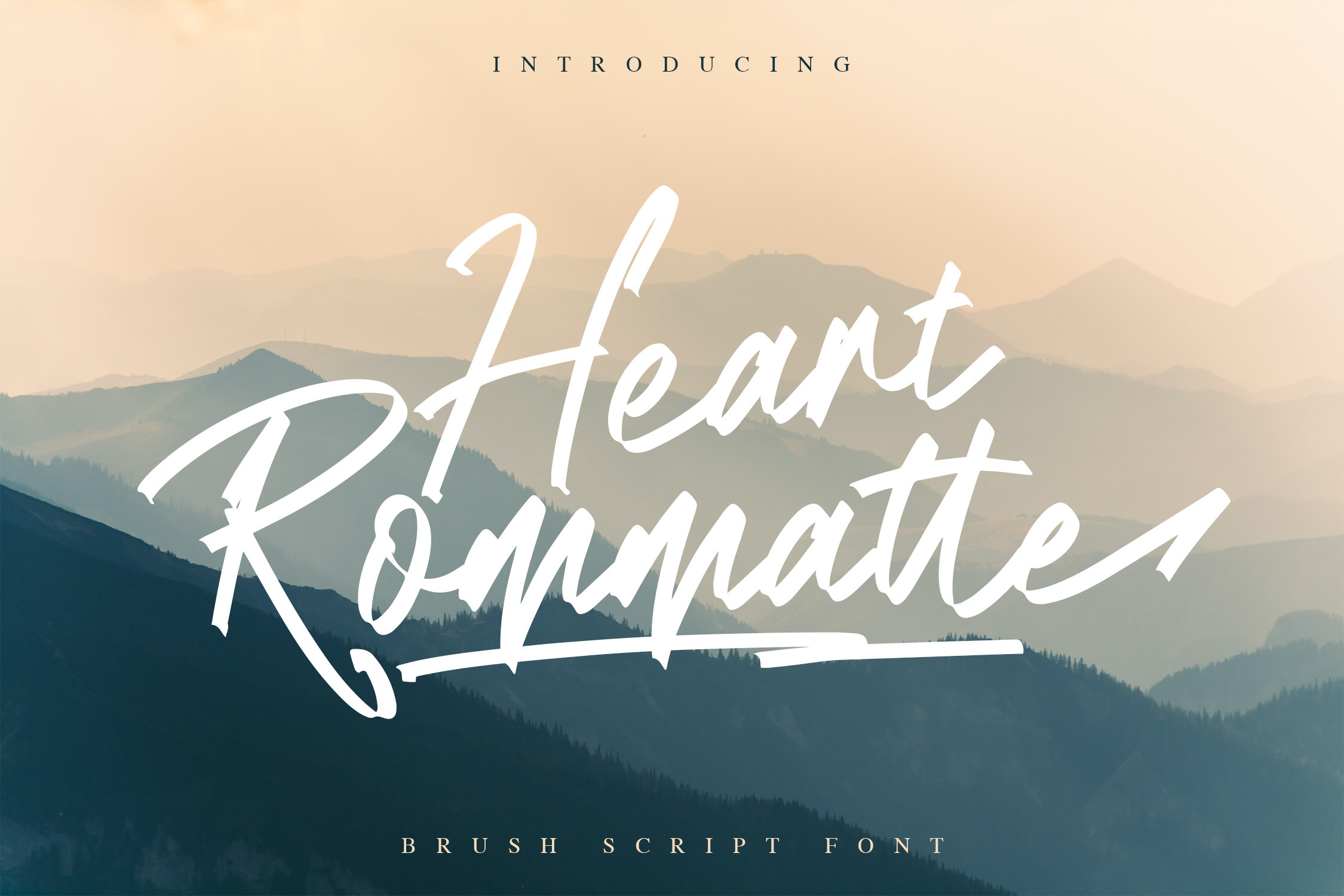
Heart Rommatte - Script Font
Heart Rommatte is a beautiful brush script font with an elegant calligraphic style. Is a font style that is made with scratches and curvature shapes font characters are very beautiful. Can be applied to support the graphic appearance of the product to be more attractive and unique. This font is suitable for making previews and covers, logo designs, shirt designs and other graphic needs.
Heart Rommatte font with uppercase characters A-Z, lowercase characters a-z, punctuation, swashes, stylistic alternate and ligature characters that enhance this font shape.
- Stylistic Alternate